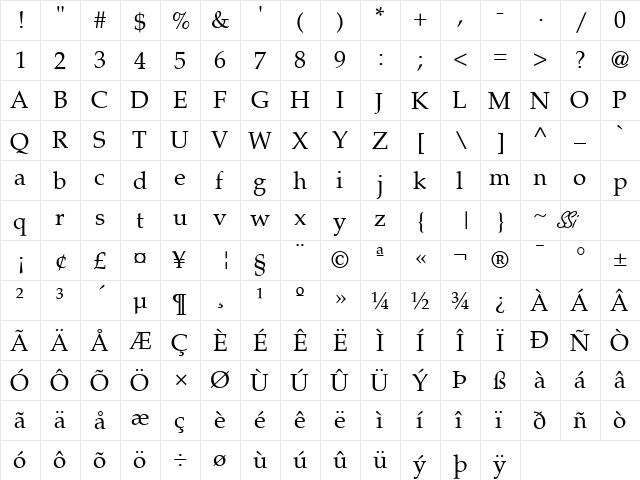
Criteria SSi Regular
Design Context for Criteria SSi Typeface
Criteria SSi takes a measured approach to typography — its balanced proportions and neutral character make it a reliable workhorse for both digital and print work.